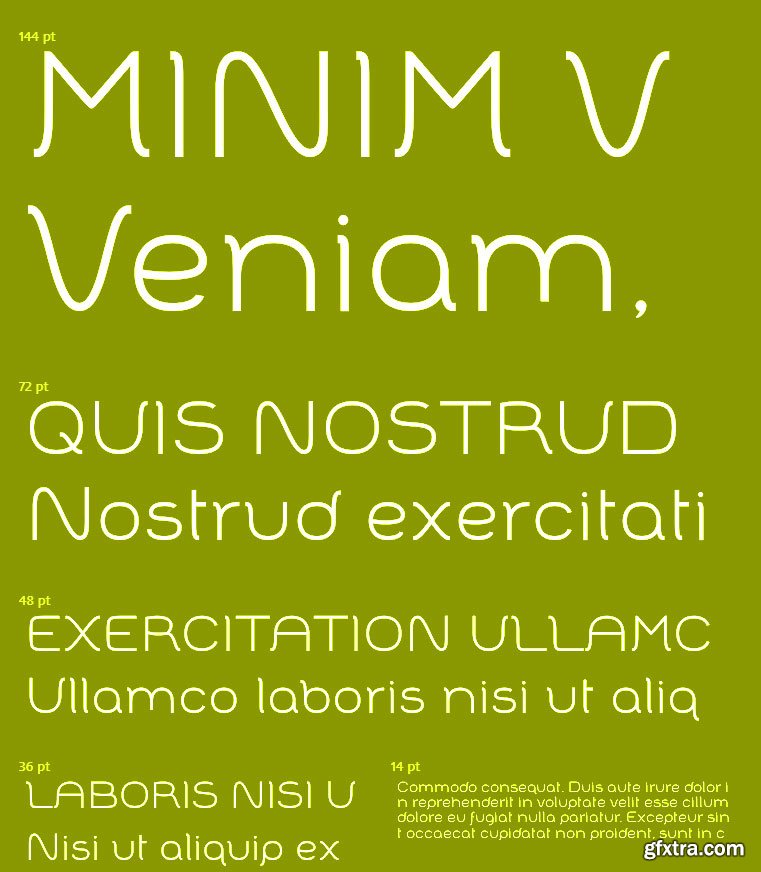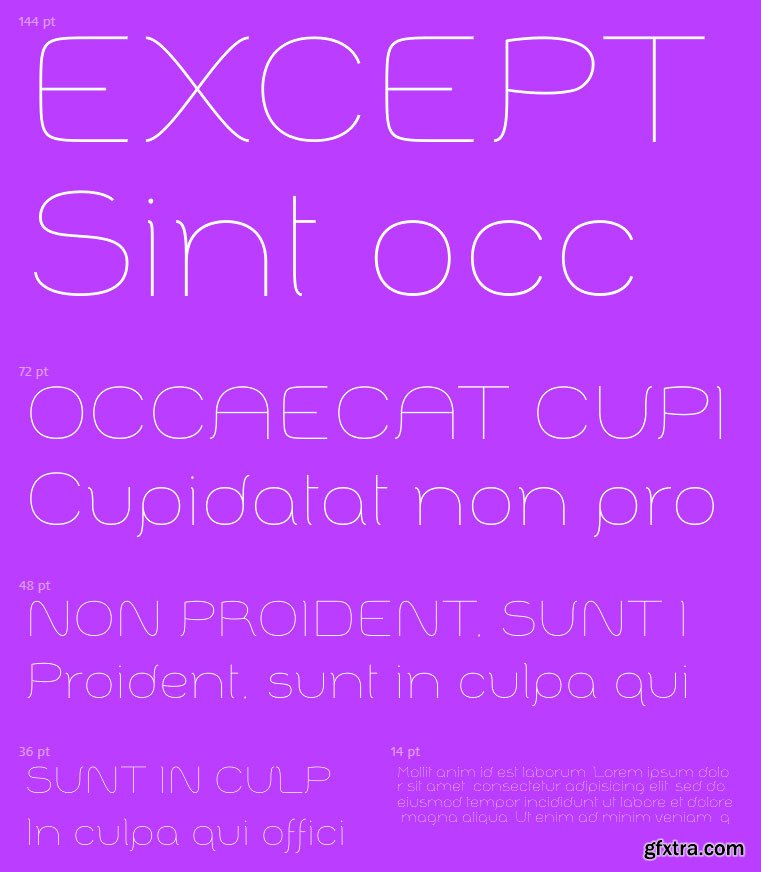
- Badona is a custom typeface which is applicable for web, print especially for magazines, brochures, posters, flyers and motion graphics.
- Both weights are perfect for logos (light size has an elegant look and the regular one gives a unique feel). Regular size is also applicable for text.
- Badona has 232 glyphs and supports Turkish and West European languages.